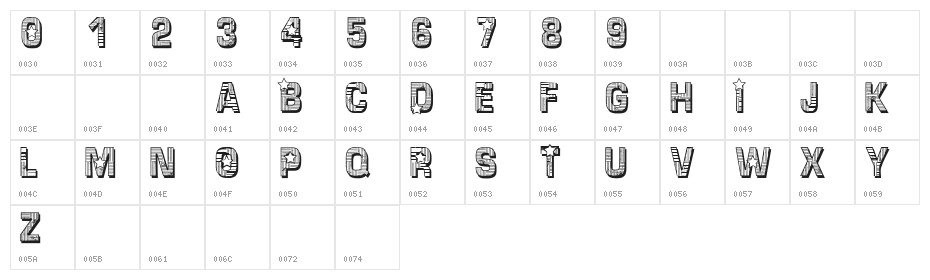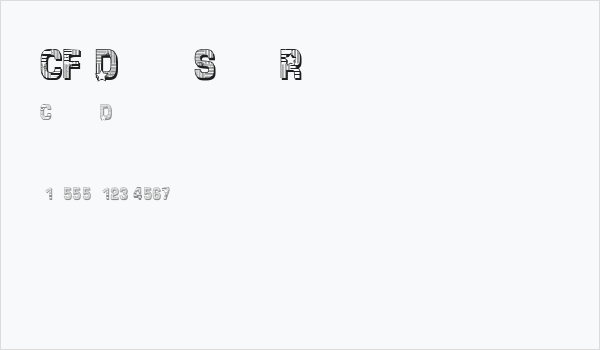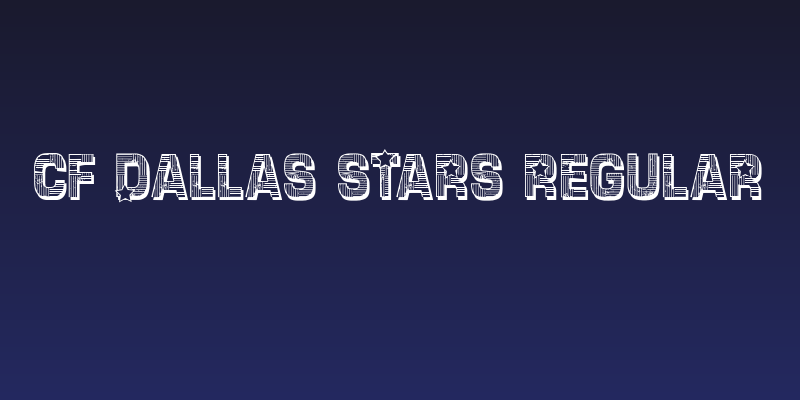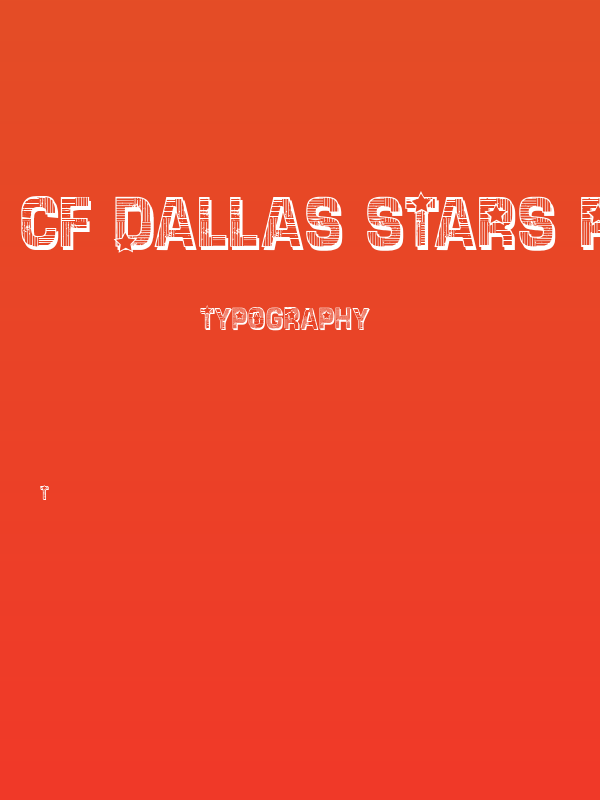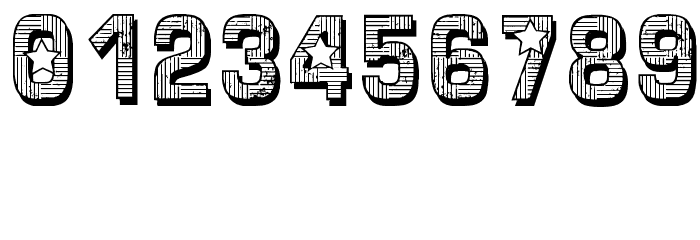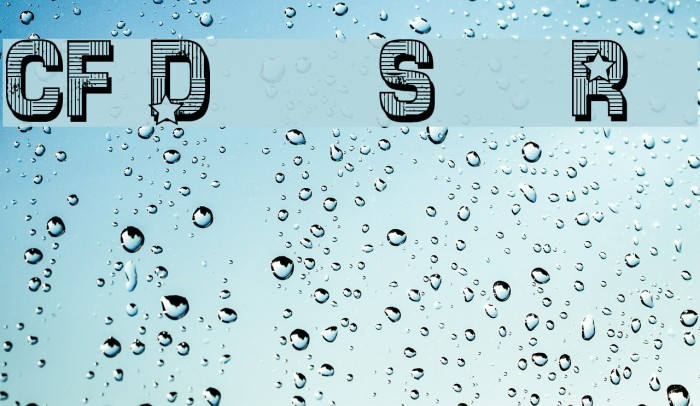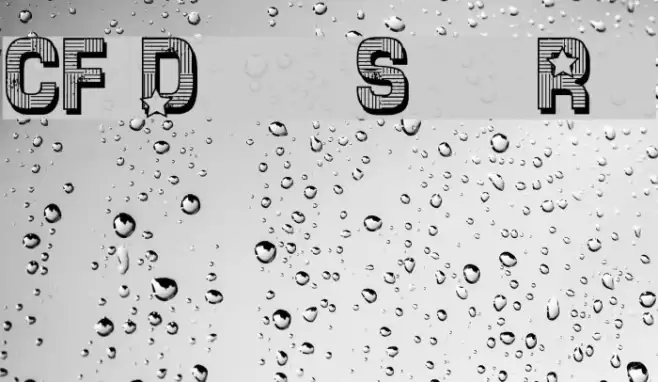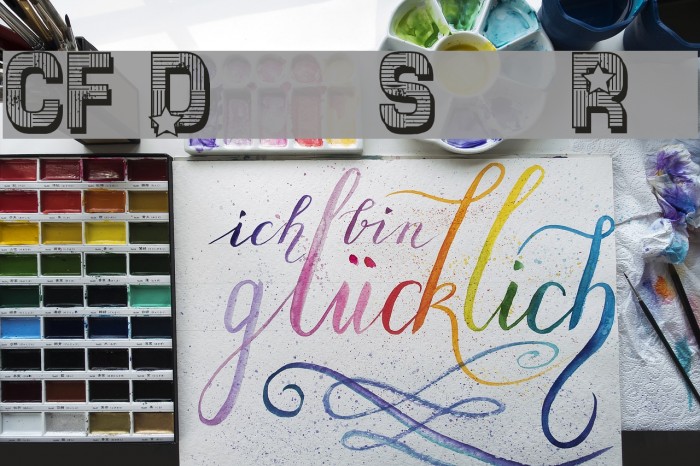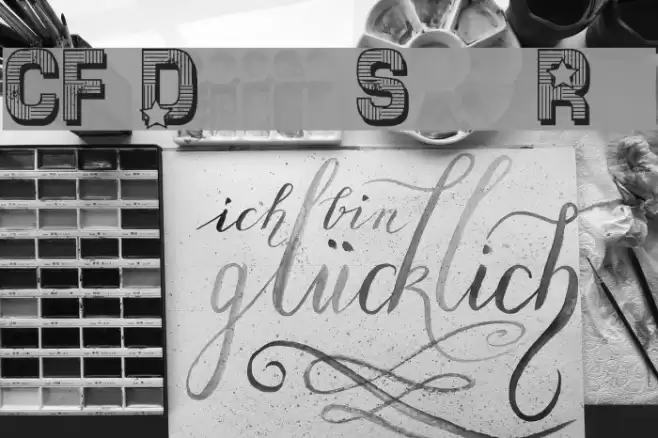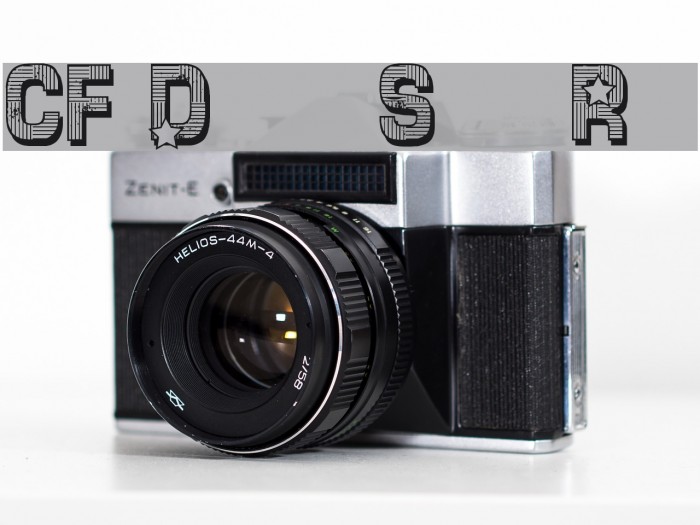
CF Dallas Stars Regular Font
CF Dallas Stars Regular Description
This font features a bold, decorative style with a unique pattern of horizontal lines running through each character, giving it a textured appearance. Stars are integrated into the design, either as part of the letters or as accents, adding a playful and dynamic element. The uppercase letters and numbers are consistent in their boldness and decorative nature, making them stand out. The font's distinct style makes it suitable for eye-catching designs where a strong visual impact is desired.
| Proposed Projects | Ideal for sports-themed designs, event posters, logos, and merchandise branding. |